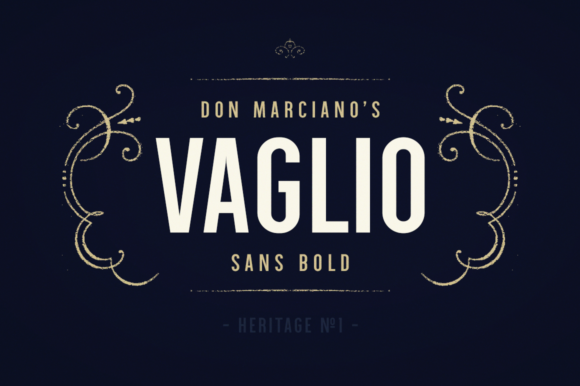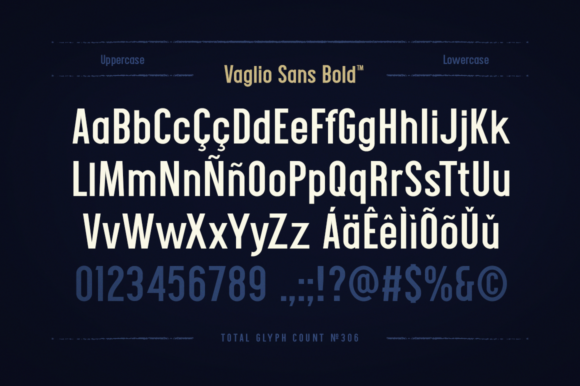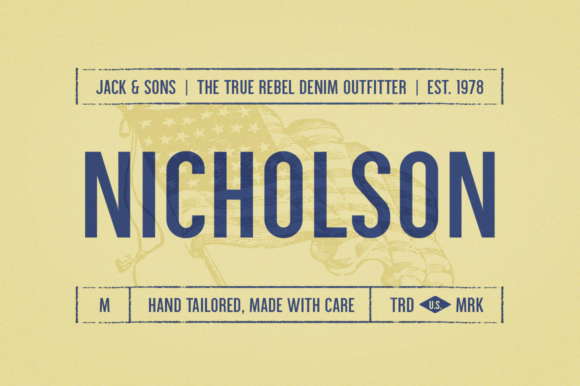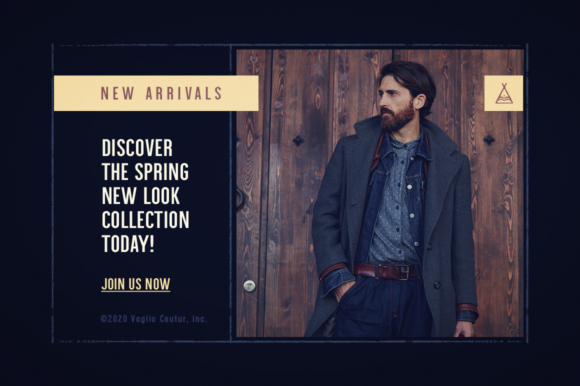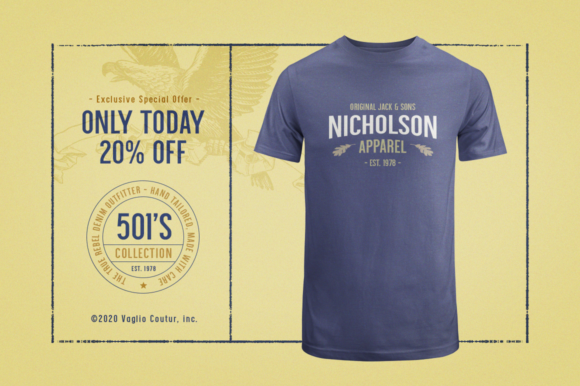
Sans Serif Fonts Vaglio Font 0 244 FacebookTwitterPinterestWhatsApp Vaglio Font 1 of 5 About Vaglio Font Vaglio is a friendly and casual sans serif font with an undeniably clean feel. It will complement any design need perfectly with its perfectly balanced mix of the smooth and sharp! DOWNLOAD NOW